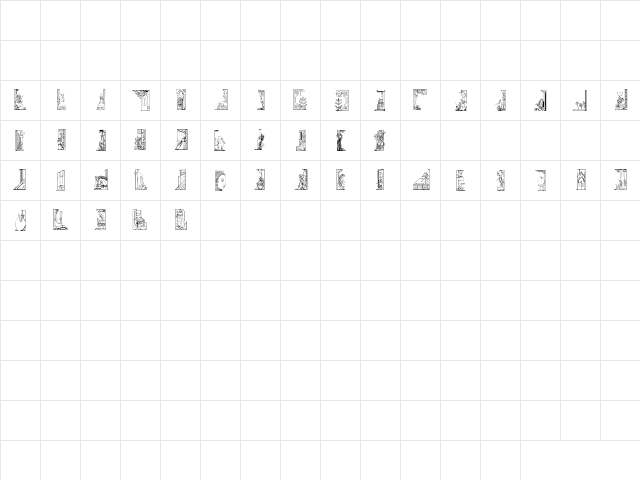
LSTiffany2 Regular Font Preview
LSTiffany2 Regular
Design Context for LSTiffany2 Typeface
LSTiffany2 is a composed and adaptable typeface that performs quietly and consistently across a wide range of design contexts.